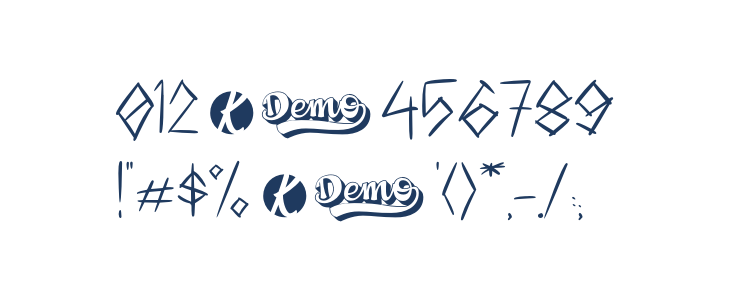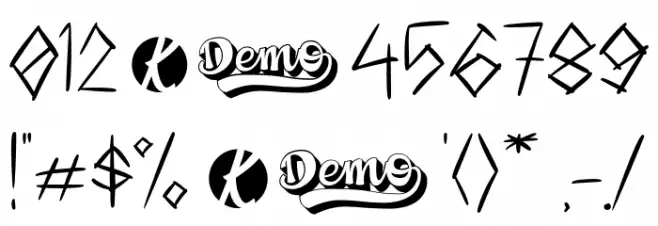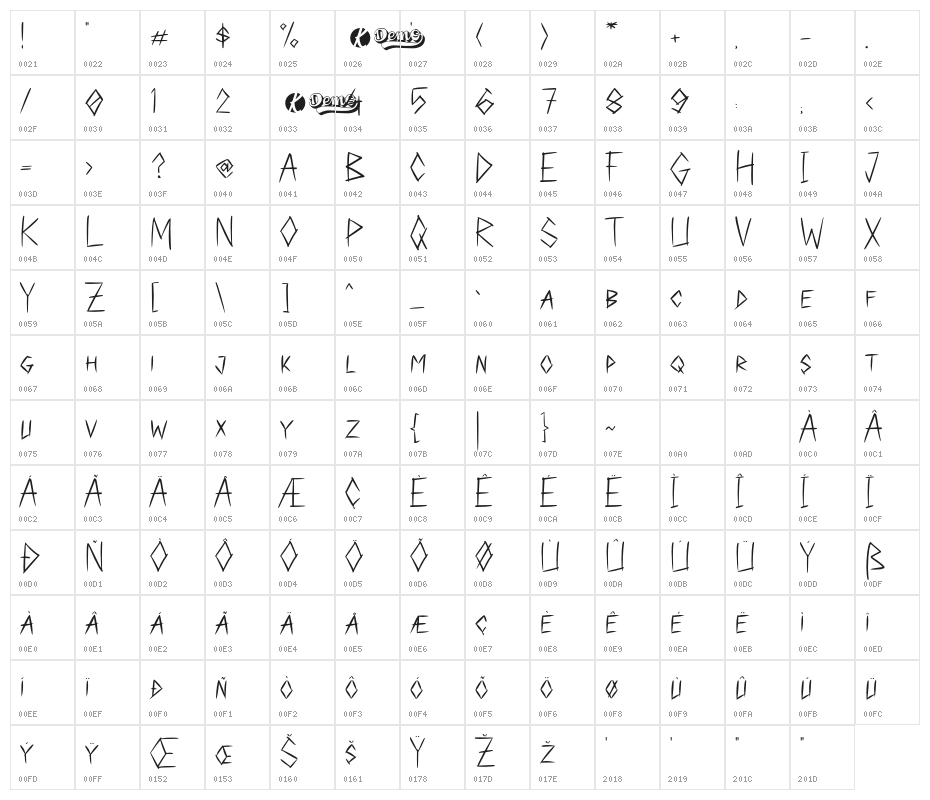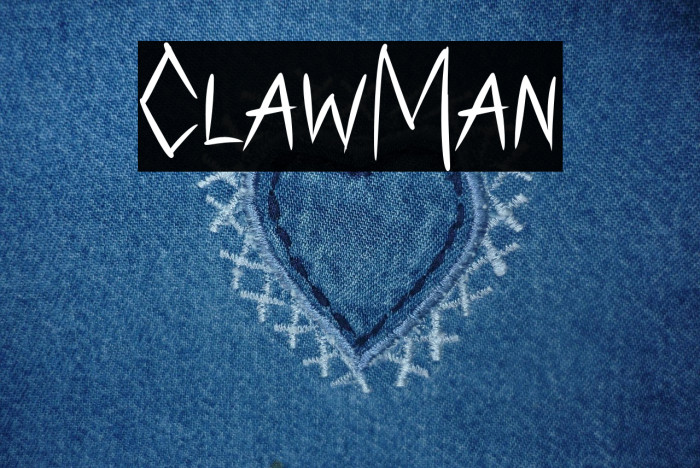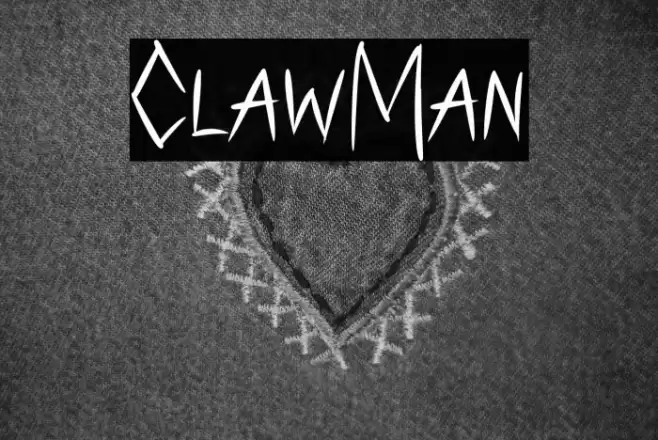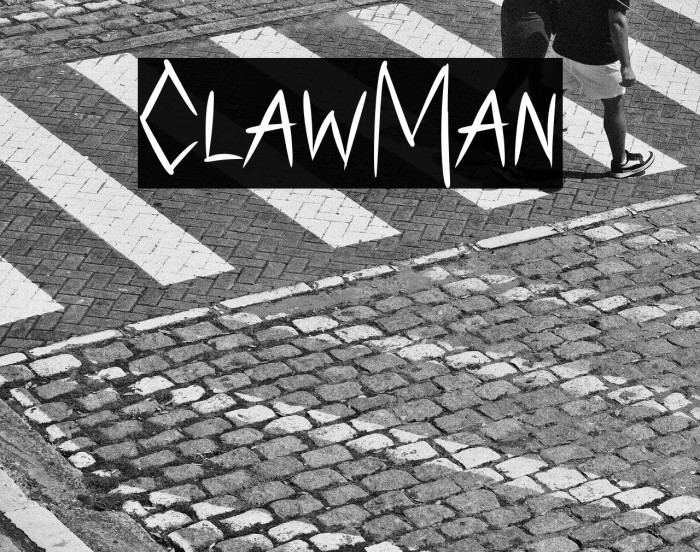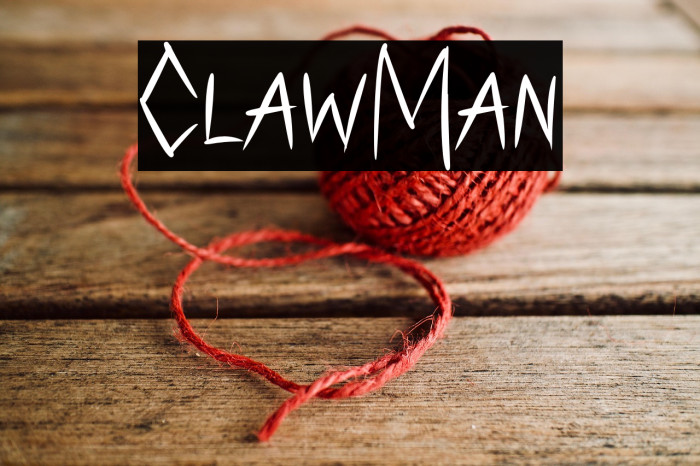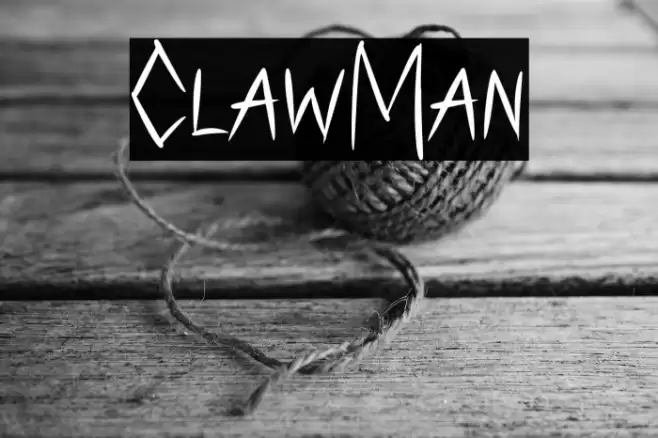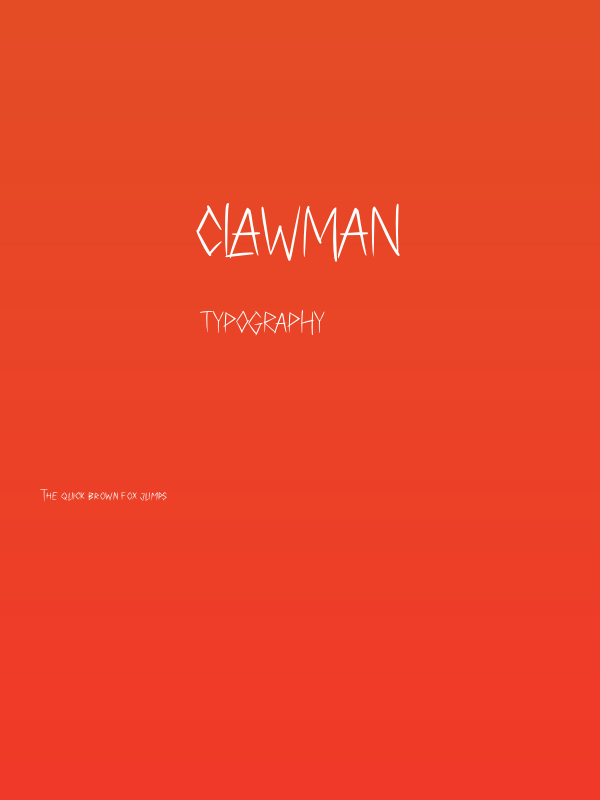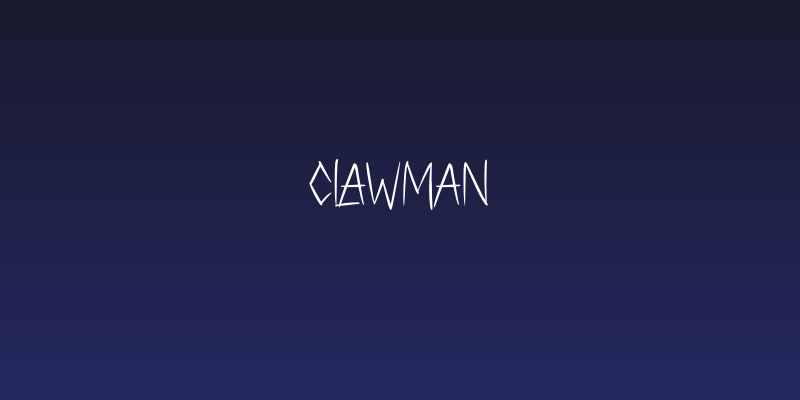
ClawMan Font
ClawMan Description
This font features a bold, edgy design with sharp, angular lines that give it a dynamic and aggressive appearance. The uppercase letters are tall and narrow, with exaggerated points and strokes that create a sense of movement and energy. The lowercase letters maintain this sharpness, offering a cohesive look throughout. Numbers and special characters follow the same style, ensuring consistency. The font's unique style makes it stand out, perfect for projects that require a bold statement. Its distinctiveness is ideal for creative and unconventional designs.
| Overall Style | Modern, Edgy |
| Proposed Projects | Ideal for music album covers, skateboarding brands, extreme sports logos, and edgy poster designs. |